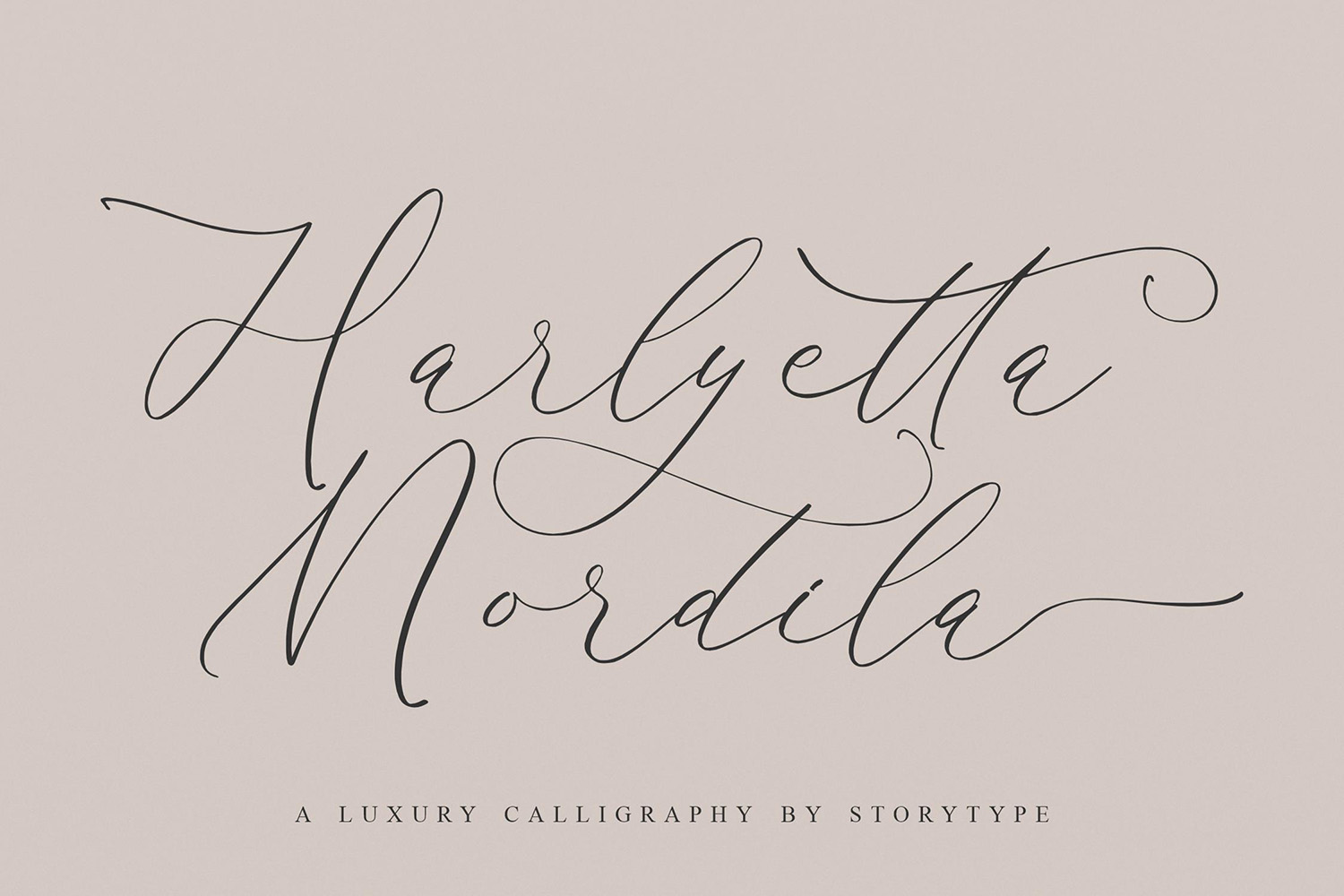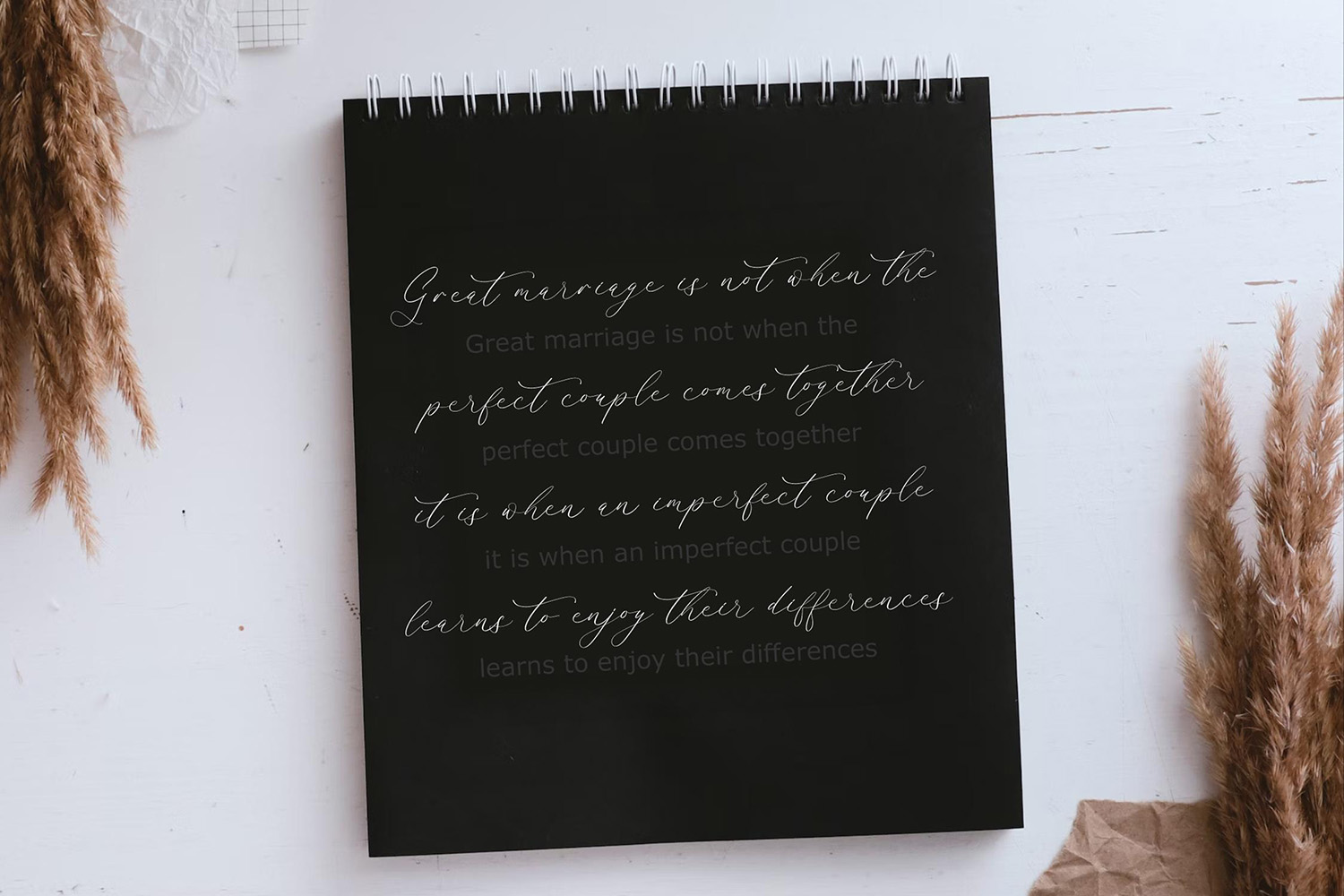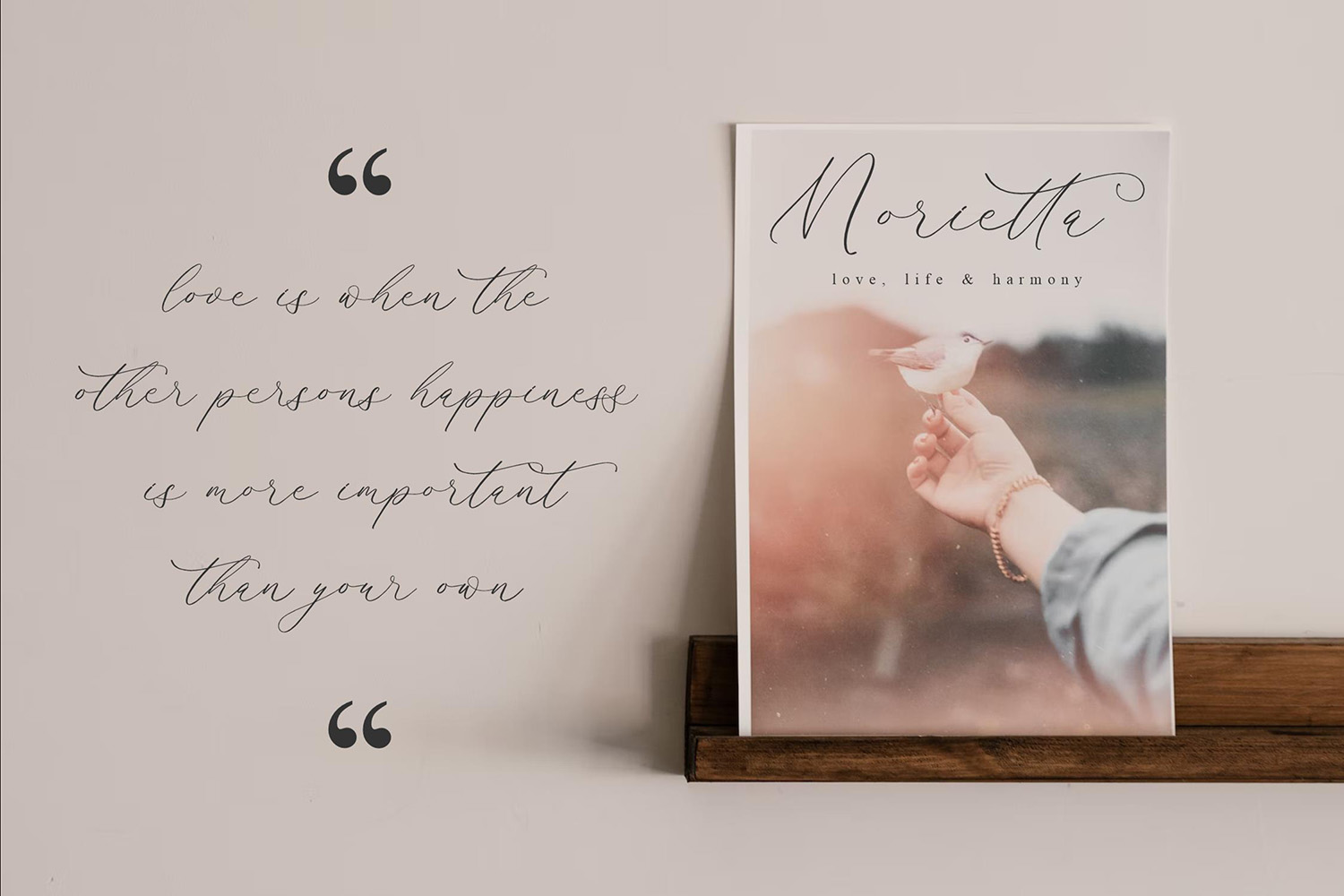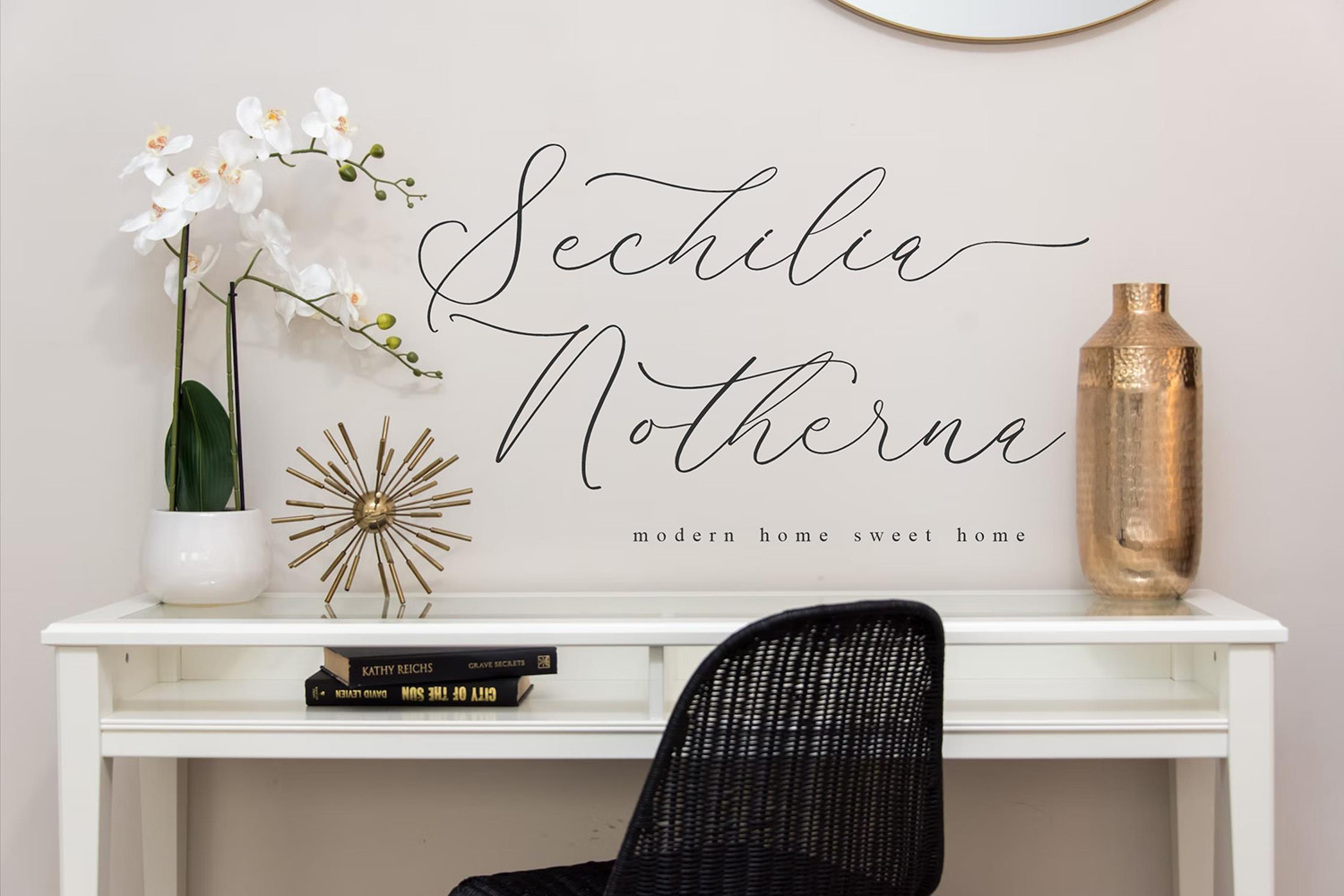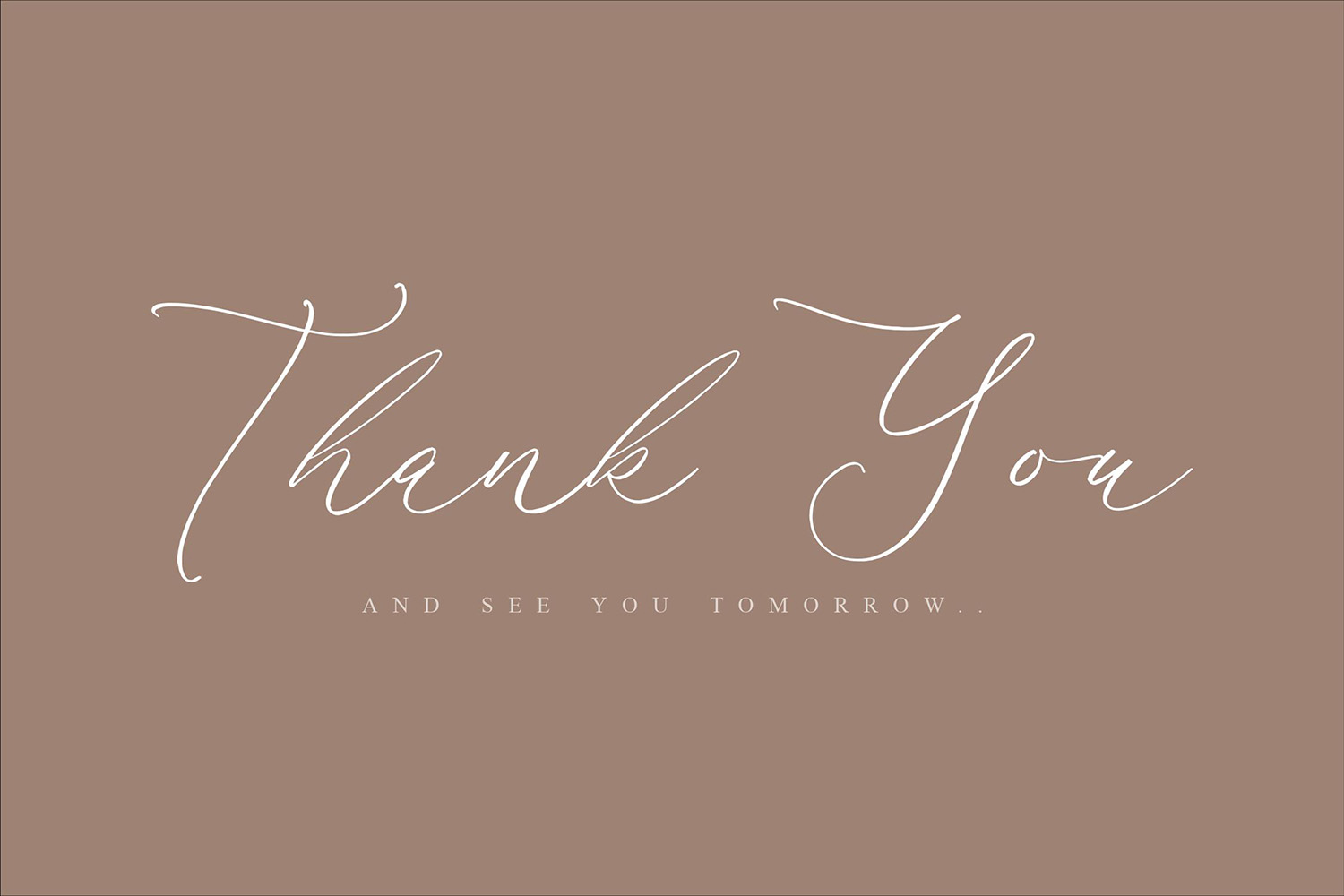
Harlyetta Mordila Free Font
Harlyetta Mordila Free Font is a handwritten script that exudes emotion and character with every stroke. It’s like each letter was carefully crafted by hand, with a personal touch that can only be achieved through the imperfections and variations of the human hand. The swirling, looping letters seem to dance across the page, bringing a sense of whimsy and playfulness to any project. But there’s also a sense of elegance and refinement in the way the letters flow together, making this font a versatile choice for any project that requires a touch of personality and emotion. Whether you’re looking to add a personal touch to your wedding invitations, craft a heartfelt letter, or create a branding identity that feels authentic and genuine, Harlyetta Mordila Free Font is sure to bring a touch of emotion and character to your work.